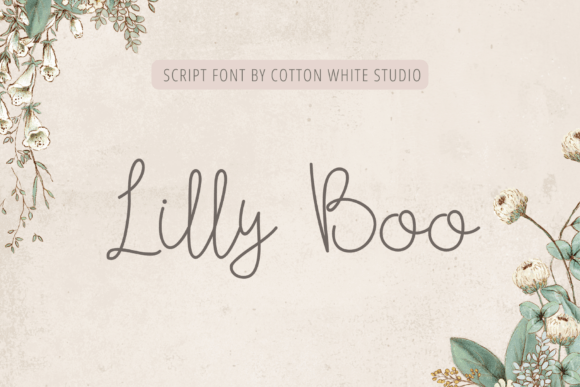
**Introducing Lilly Boo: The Enchanting Font for Unforgettable Occasions**
Prepare to be mesmerized by Lilly Boo, a script font that exudes elegance and charm, enchanting your every creation with its captivating presence. Crafted with meticulous precision by the renowned Cotton White Studio, Lilly Boo is the epitome of artistry, gracing your projects with a touch of heartfelt authenticity.
Lilly Boo's graceful curves and whimsical flourishes lend an intimate and personal feel to your designs, making it the perfect choice for infusing a warm and inviting ambiance into your work. Its versatility shines across a myriad of platforms, from branding and invitations to blogs and planners, effortlessly elevating the aesthetics of your creations.
Picture this: your wedding video, adorned with the enchanting strokes of Lilly Boo, capturing the heartfelt emotions and joy of your special day. Its captivating presence adds a timeless elegance that will forever evoke cherished memories. Or envision your branding materials, imbued with the distinctive charm of Lilly Boo, captivating your audience with its sophisticated allure.
Lilly Boo is not merely a font; it's an artistic expression that transforms your work into a masterpiece. Its hand-drawn origins evoke a sense of genuine craftsmanship, adding an intimate touch that resonates with your audience. With Lilly Boo, you're not just designing; you're creating a visual symphony that speaks to the heart.
So, whether you seek to create unforgettable memories through your wedding video, elevate your branding with a touch of sophistication, or simply add a dash of heartfelt elegance to your everyday projects, Lilly Boo is your muse. Experience the magic of this enchanting font and let your creativity soar to new heights.